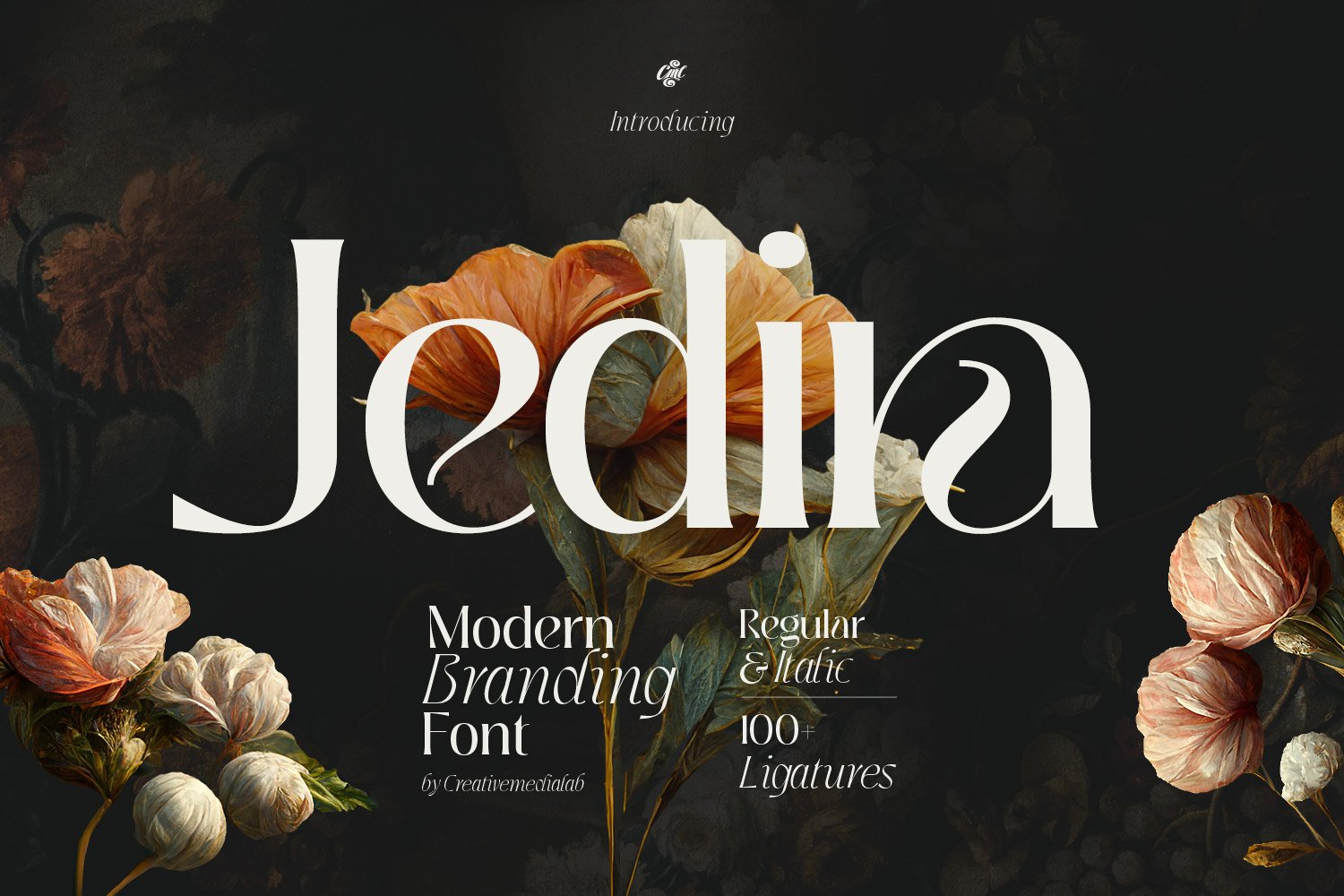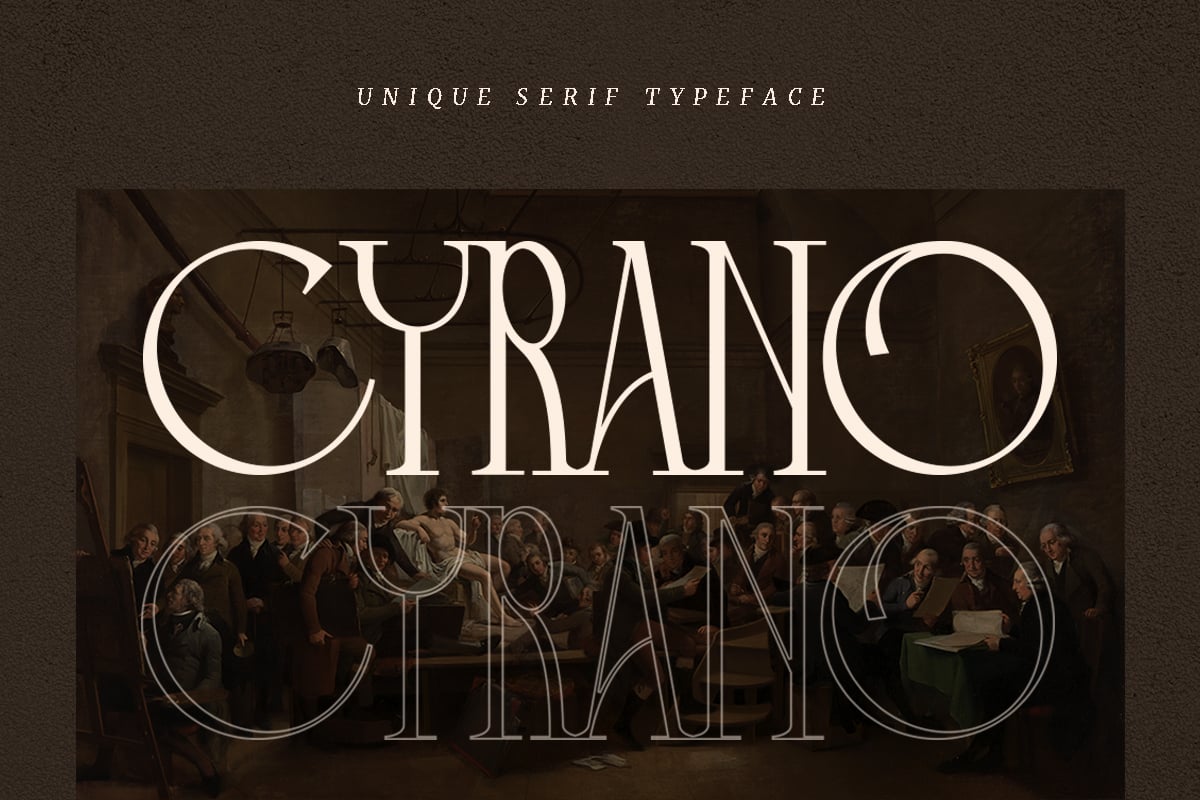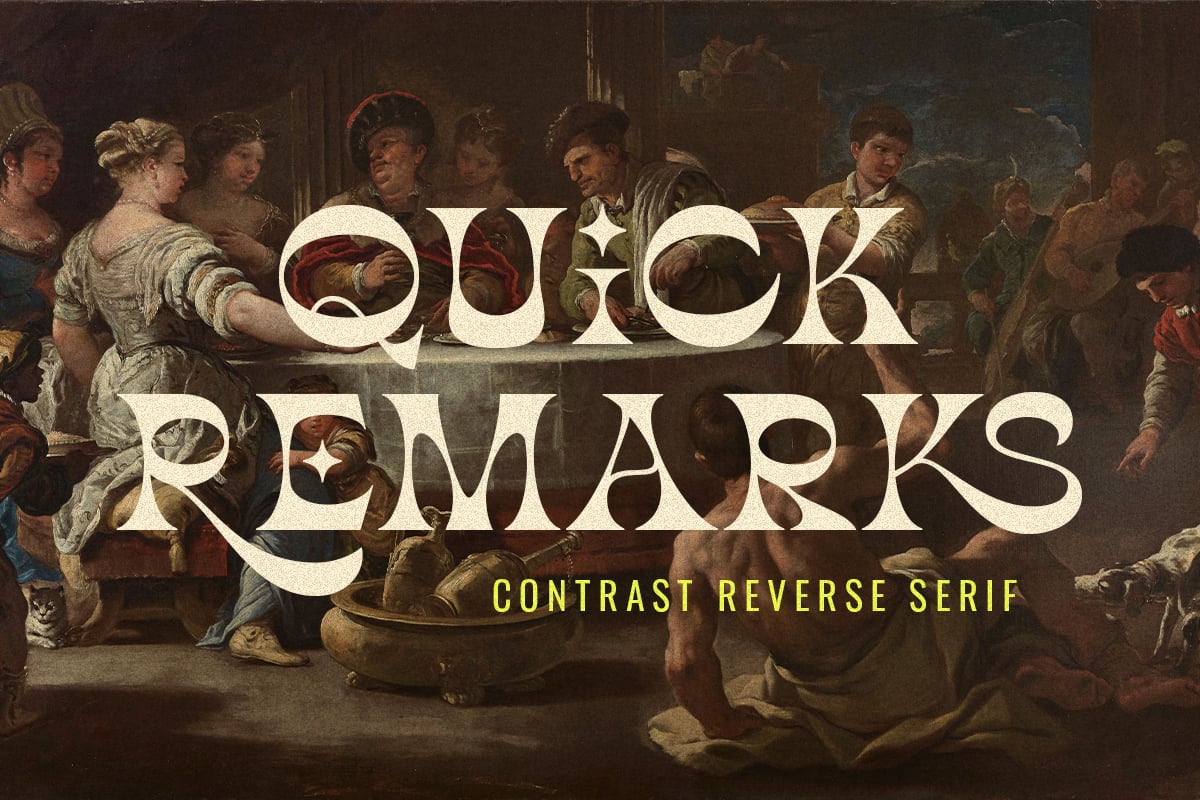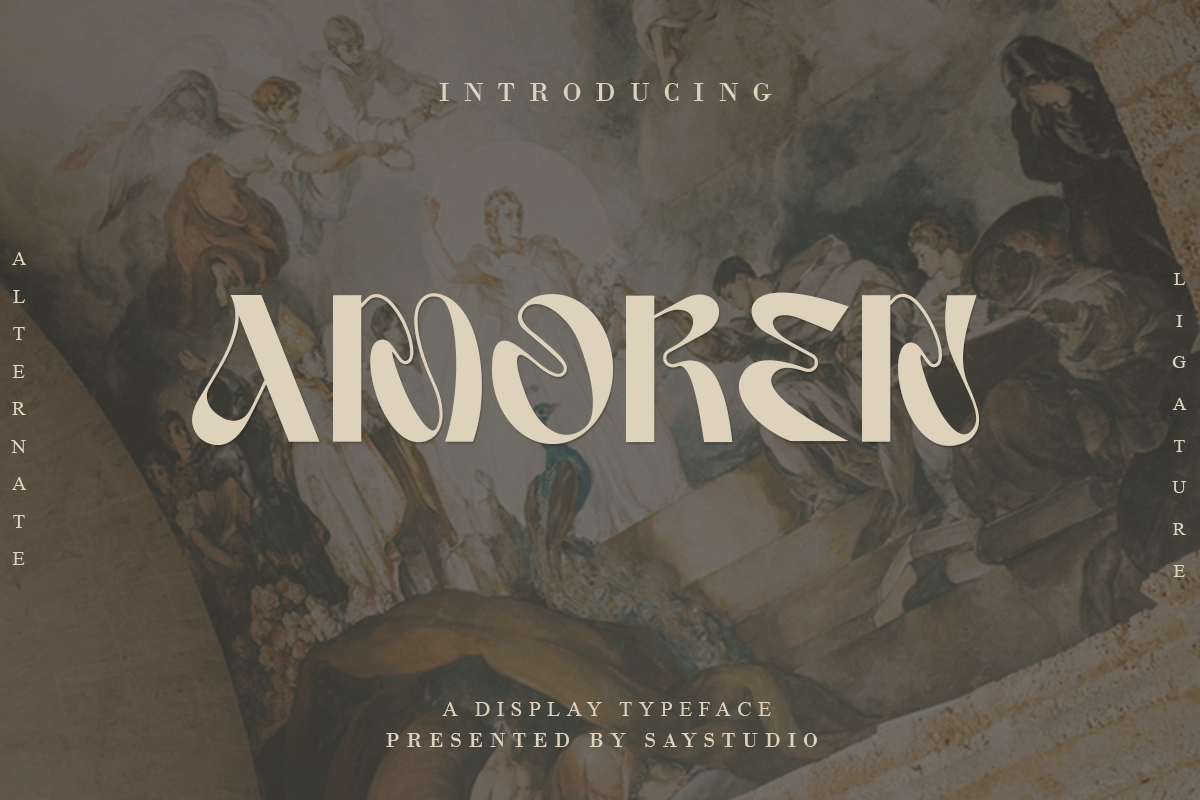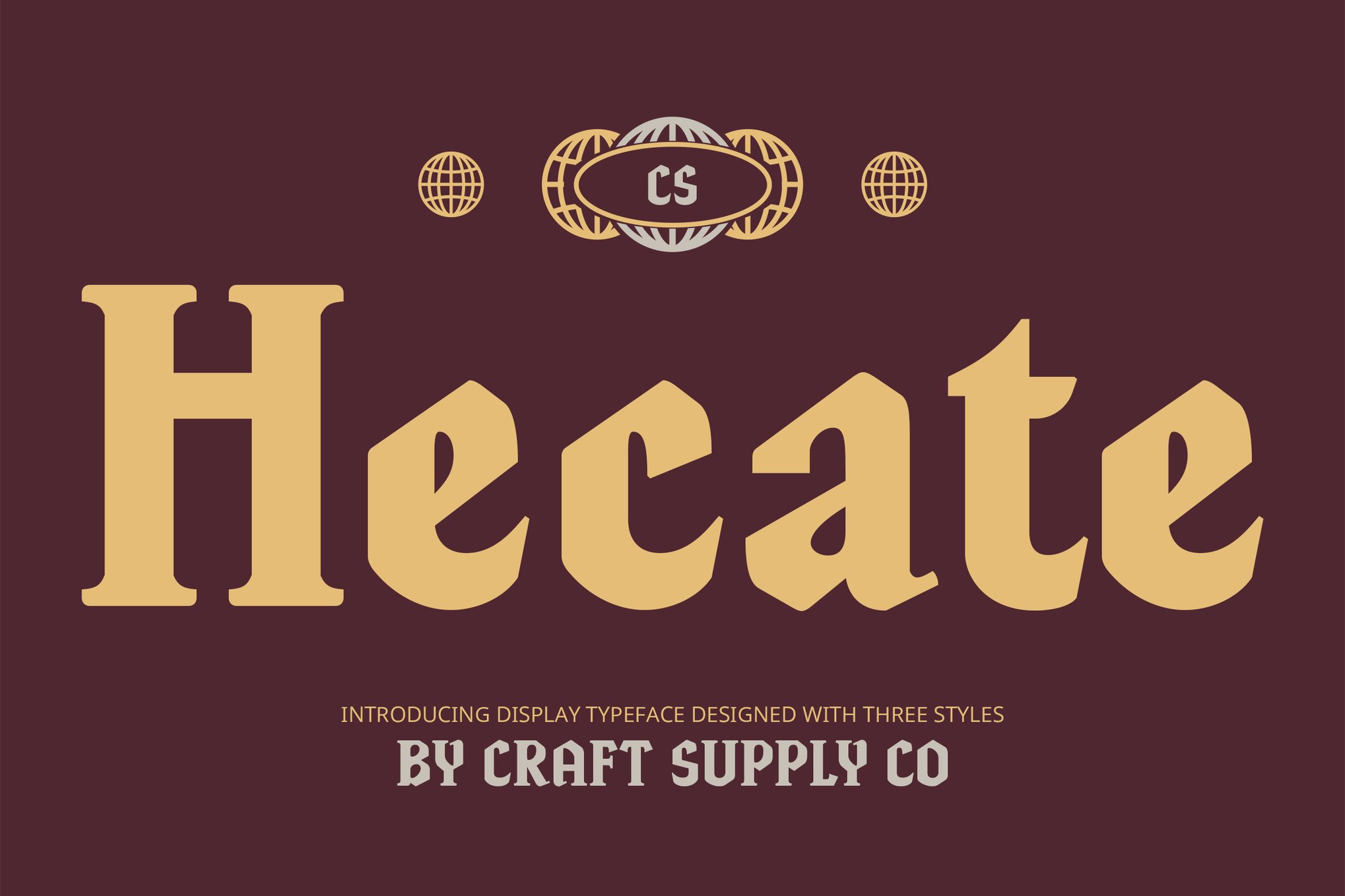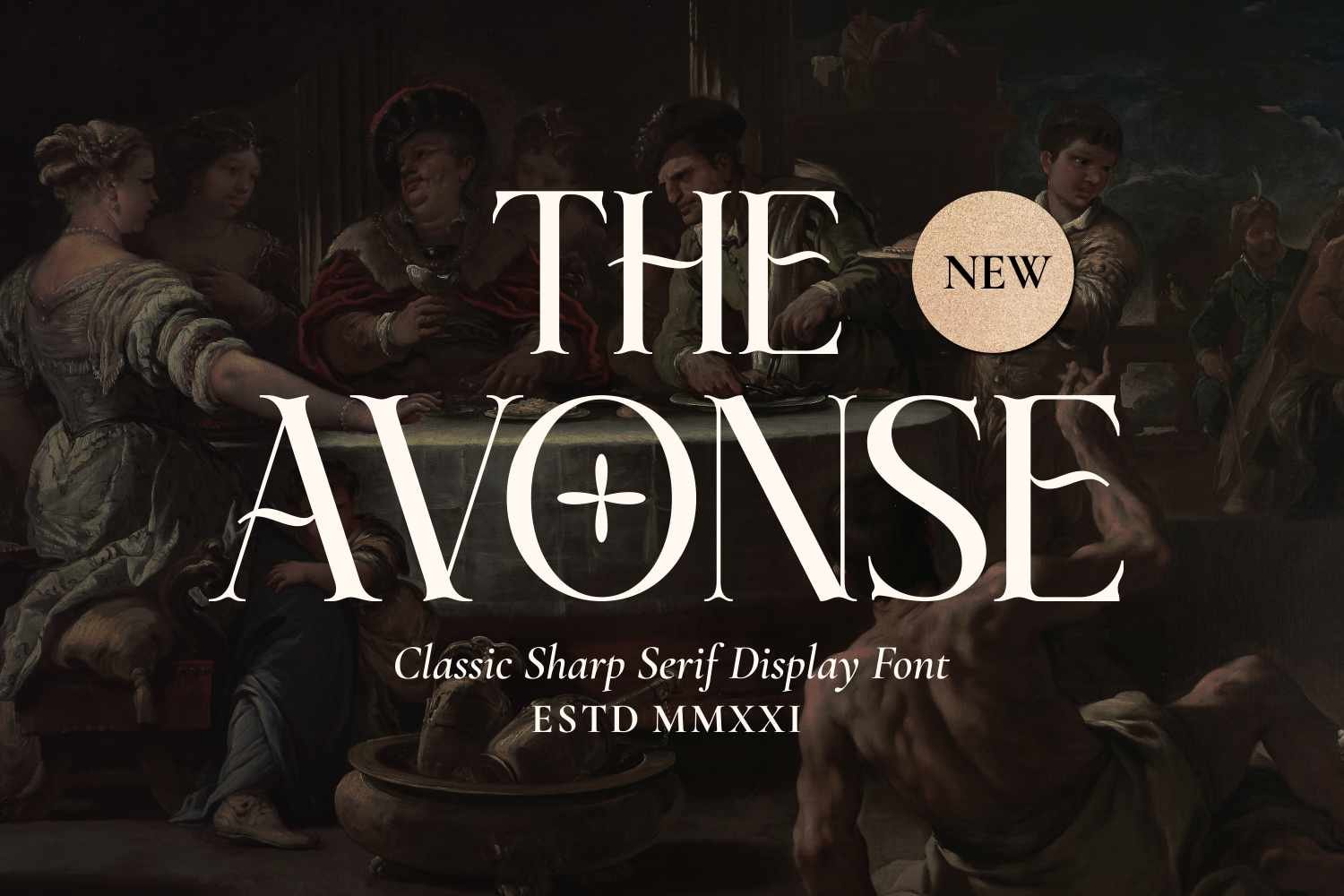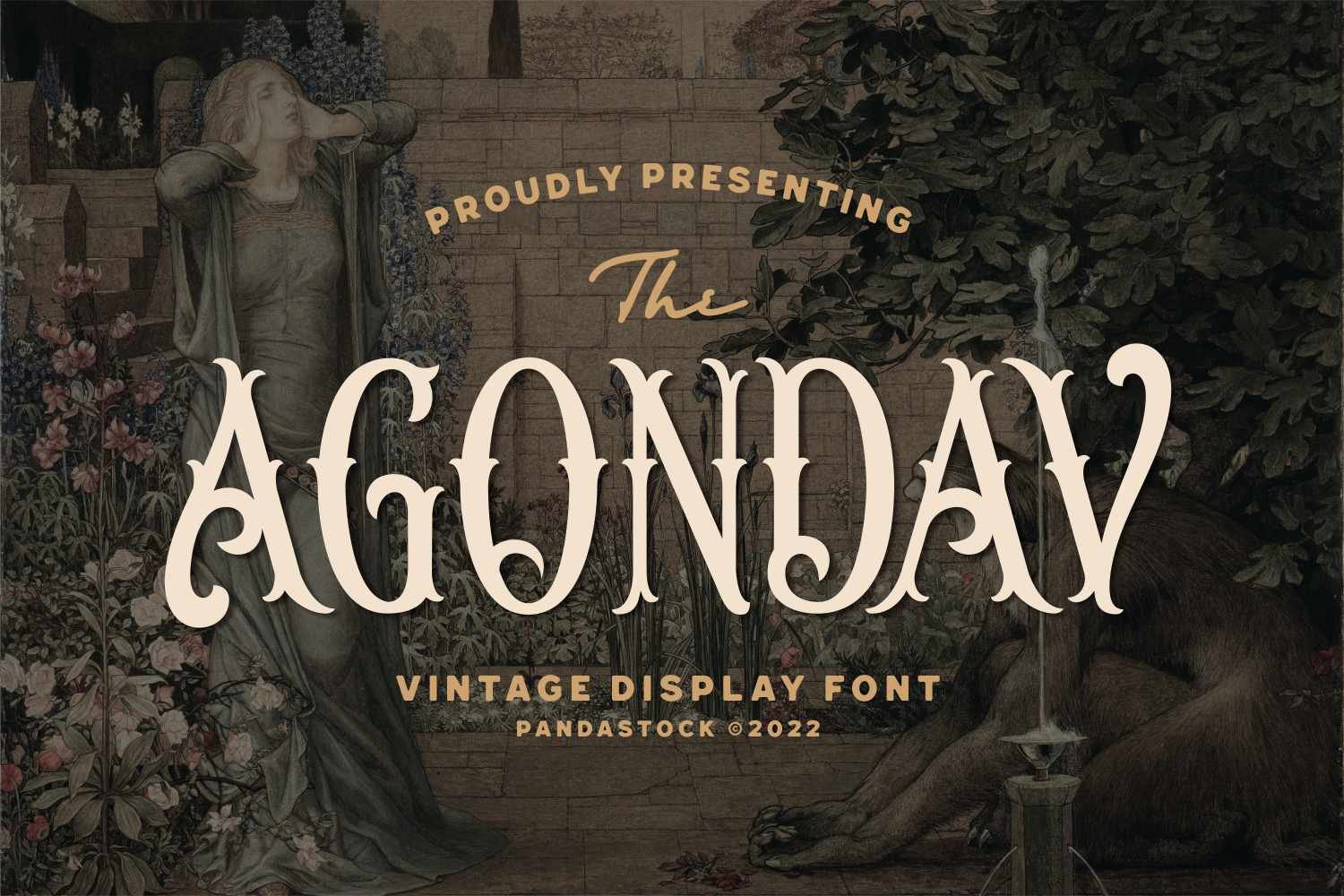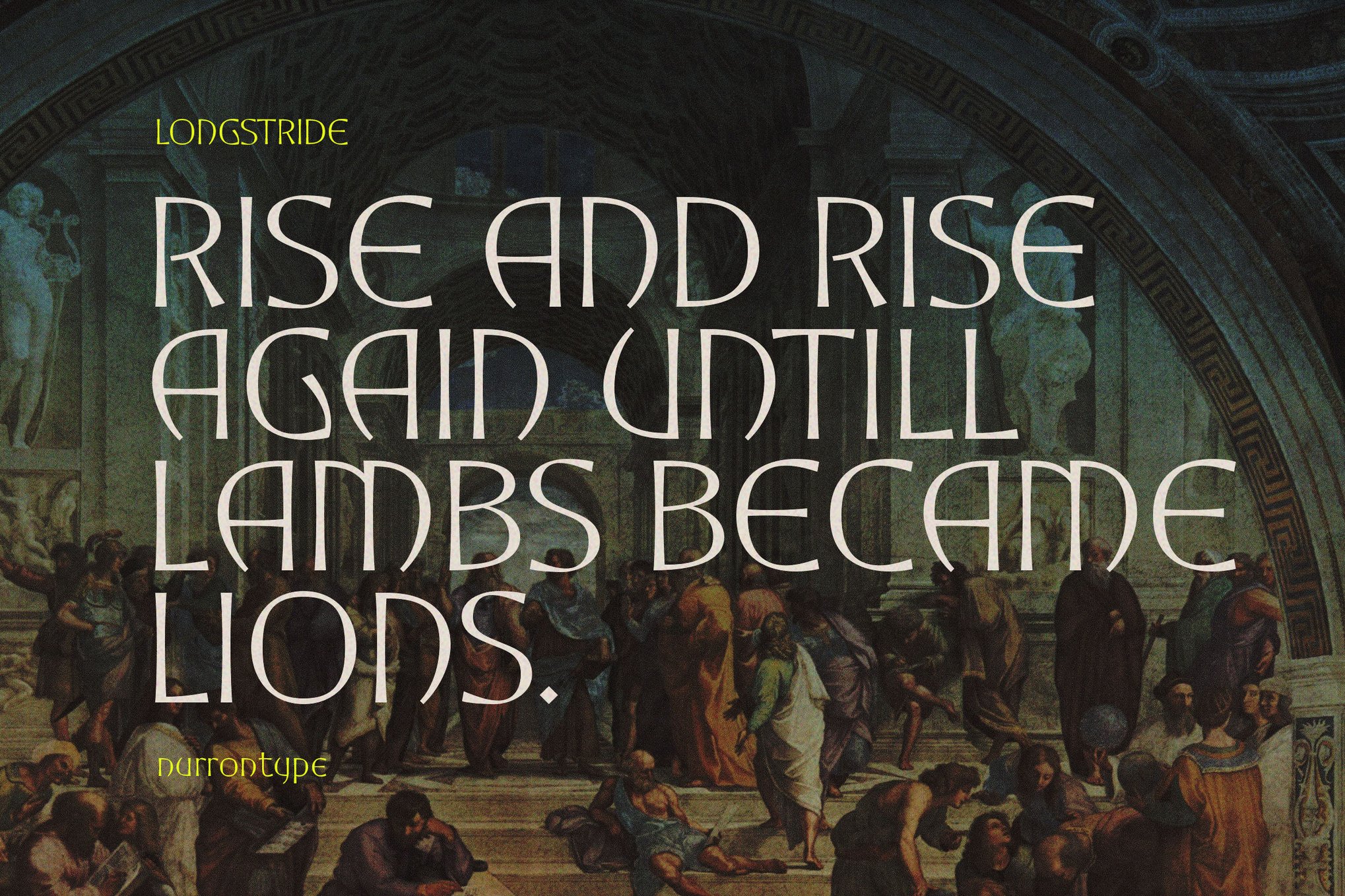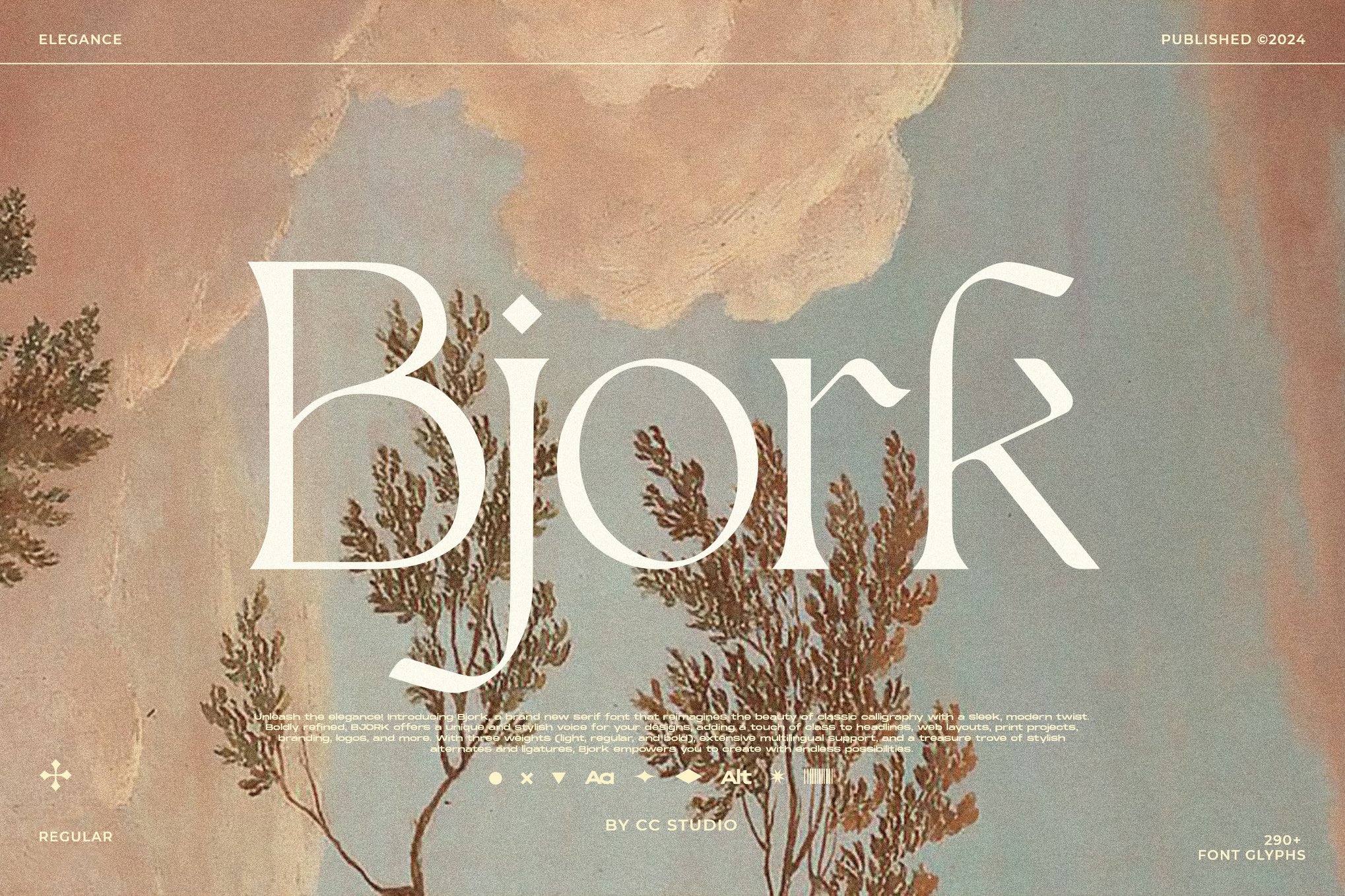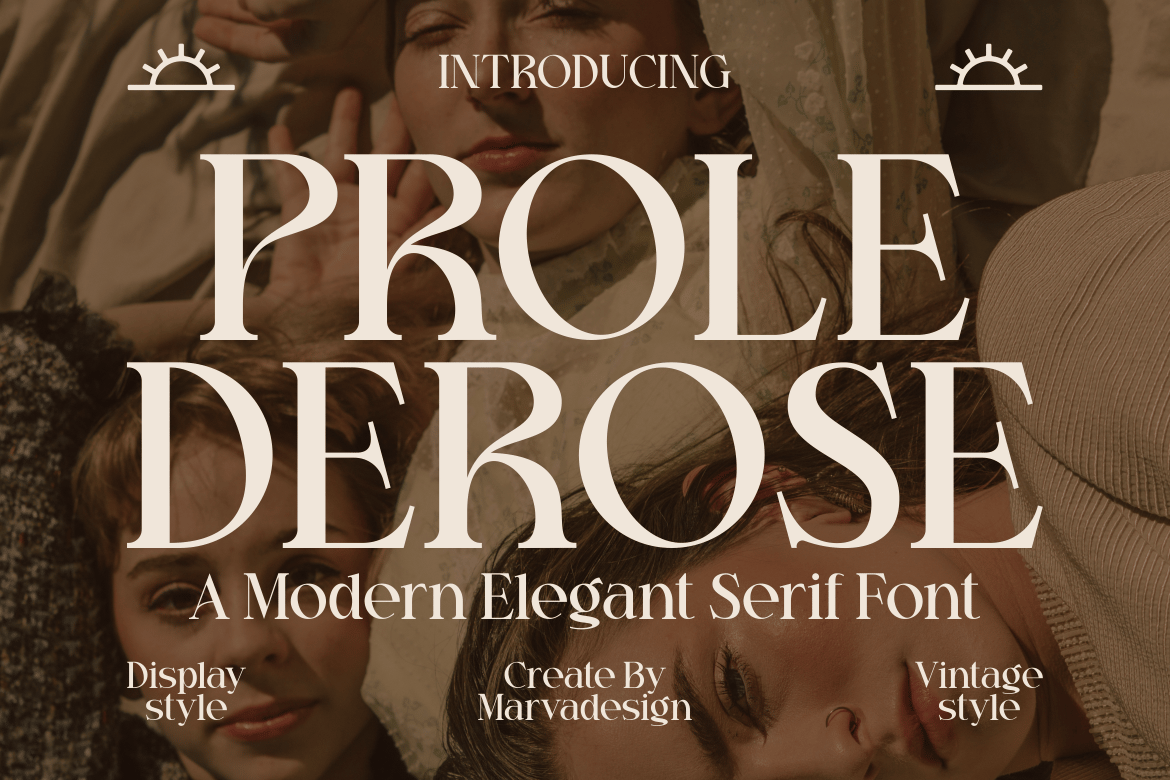
20+ Handpicked Renaissance Fonts for Classical Designs
Renaissance fonts offer a beautiful way to bring classical charm and historical character into your modern design projects.
In this collection, you’ll find typefaces inspired by the art, literature, and craftsmanship of the Renaissance period.
These fonts feature the precision and elegance found in traditional calligraphy, early printed books, and humanist handwriting. Offering a range of styles that suit both richly detailed compositions and minimal classical themes.
Renaissance fonts pair well with textured paper backgrounds, gold accents, and warm color palettes to enhance the historical aesthetic.
With the right Renaissance font, your design will feel elegant, expressive, and rooted in classical tradition.
Jedira – Elegant Renaissance Font
Jedira is a gorgeous, classically inspired typeface complete with matching italics and a wealth of ligatures. With its classy appeal and versatility, this font is an excellent choice for any branding, web design projects, logos, and fashion-related concepts. With Jedira, you can instantly add a touch of elegance and sophistication to your designs.
Cyrano – Classical Renaissance Font
Cyrano is a unique serif font, Cyrano is expertly crafted for a fashionable, chic vibe that’s perfect for stylish projects such as logos or magazine titles. It features easily interchangeable lower and uppercase letters, comes in TTF, OTF, SVG, and Webfont, and includes support for multiple languages, punctuation, and ligatures.
Quick Remarks – Reverse Serif Font
Quick Remarks is a contemporary reverse serif font exhibiting a chic contrast. Boasting distinct uppercase and lowercase styles, it’s ideal for enhancing presentations, posters, or logos. The font allows mixing and matching its cases, providing unlimited customization. With delightful ligatures and multi-language support, Quick Remarks can add a touch of Renaissance elegance to any project.
Amoren – Unique Renaissance Font
Amoren is a distinctive Renaissance font boasting a psychedelic design and unique curves for a delightful visual experience. Its playful energy makes it fitting for a variety of uses from apparel and book covers to titles. The font provides several alternate characters and ligatures with supportive features in Regular and Italic formats.
Hecate – Classic Renaissance Font
Hecate is a bold and striking serif font that embodies the elegance of the Renaissance era in a modern context. With prominent strokes and intricate details, it conveys a sense of authority and sophistication. This font is perfect for high-end projects that require elegance and strength, such as luxury brands and cultural publications.
The Avonse – Sharp Renaissance Font
Avonse is a sleek, modern take on traditional serif display fonts. This versatile font includes uppercase and lowercase letters, numerals, punctuation and alternative characters, with multilingual support. It’s perfect for creating arresting logos, headlines, and even for body copy in blogs or magazines. With its subtle nod to the past, The Avonse can enhance various design projects, adding a touch of elegance and sophistication.
Agondav – Old Vintage Renaissance Font
With a nod to the Victorian era and hints of early art nouveau, Agondav is a versatile, vintage renaissance font that exudes drama and elegance. Its tall letterforms and flared serifs add depth to this sculptural type, delivering a fairy-tale ambiance when set large. Agondav is perfect for posters, boutique logos, or book covers, and it comes packed with features, including multilingual support.
Longstride – Bold Renaissance Font
Longstride is a bold, confident Renaissance font, taking inspiration from Roman letterforms. Its low contrast design makes it charismatic and versatile, incorporating uppercase, lowercase, numbers, punctuation, plus extra features such as diacritics, ligatures, and alternate options. Complete with multilingual support, it’s a perfect choice to add a touch of historical charm to any project.
Bjork – Stylish Renaissance Font
Bjork is a stylish Renaissance font that combines the elegance of classic calligraphy with a modern edge. It’s a bold, polished serif font offering a unique voice for your designs, ideal for headlines, web layouts, branding and more. Multi-lingual with alternatives and ligatures, Bjork serves as a strong creative asset for endless design possibilities.
Prole Derose – Elegant Renaissance Font
Prole Derose is a dynamic and genuine display font for diverse branding needs ranging from logo creation to product design. With availability in .otf and .ttf formats, it gives access to both upper and lowercase letters, multilingual options, and ligatures. Its modern focus makes it versatile for various contexts while maintaining its classical undertone.
Sequeltoz – Classic Renaissance Font
Sequeltoz is a classic Renaissance font embodying elegance and modernity with its condensed serif. Perfect for branding, stationery design, blog layouts, magazine covers, and various advertising designs, it amplifies the luxurious vibe of your projects. This font is ideal for enhancing art galleries, museums, boutique brands, and neatly ties together any event invitations or home decor themes.